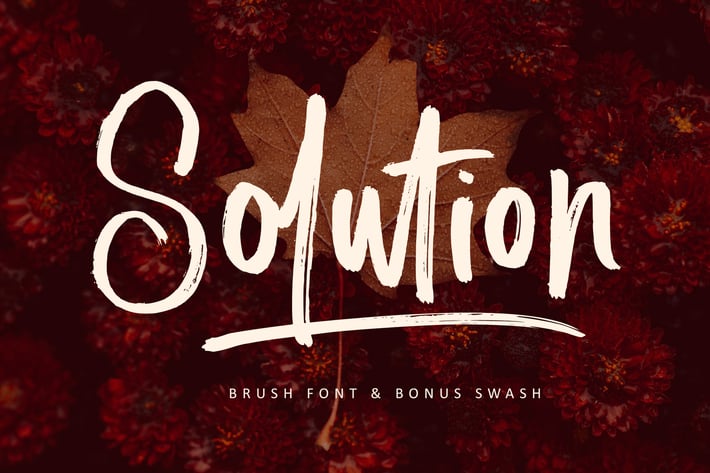
Solution Brush Font
Solution Font is a neat and relaxed brush handwritten font. This original look will appeal to a wide range of crafty ideas, from letterheads and titles, to stationery.